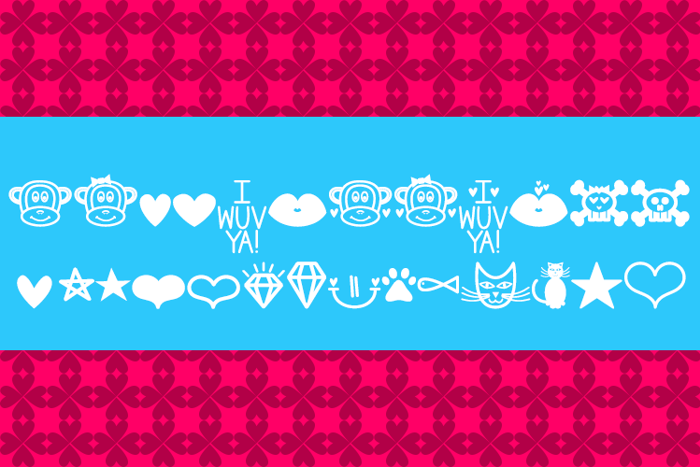
MF Dings 2 Font
This ding set includes all the special characters from my previous fonts (I Love You, Monkey, Rebel Chick, Bright Like A Diamond, The Curious Cat, and Soul Meets Body).